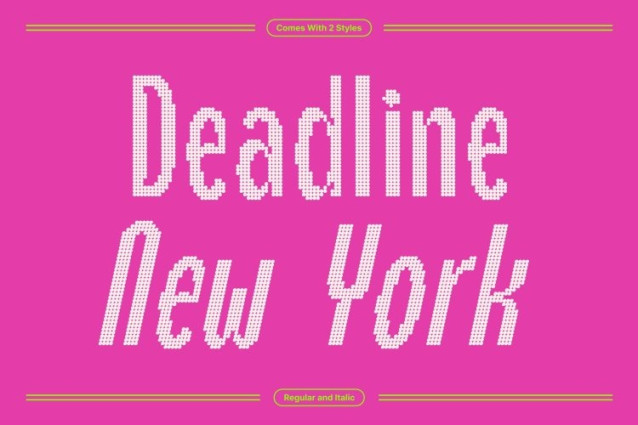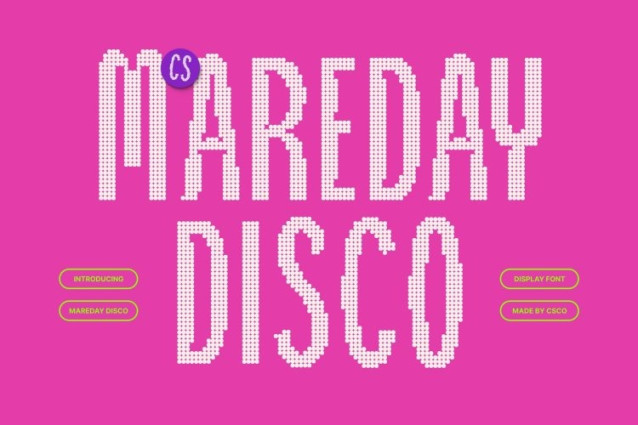
Mareday Disco Font
Mareday Disco Font This is a display sans serif font that blends clean modern structure with expressive inktrap detailing. Its refined inktrap cuts add depth and visual interest, while a subtle disco-inspired rhythm brings movement and personality making every letter feel sharp, stylish, and dynamic.
Condensed Structure for High-Impact Efficiency
Designed with a condensed form, this font maximizes space without sacrificing clarity. This efficient construction allows more content to shine in limited areas, making it ideal for headlines, banners, logos, and bold display layouts that demand strong presence and visual economy.
Low Contrast Elegance with Modern Flow
This font features a low-contrast stroke design that creates a smooth, balanced appearance. This understated contrast adds a layer of sophistication while maintaining readability, resulting in typography that feels polished, controlled, and effortlessly modern.
Versatile for Modern and Expressive Design
From branding and packaging to posters and editorial layouts, adapts seamlessly across a wide range of creative applications. It delivers the perfect balance of elegance, efficiency, and disco-inspired energy ideal for designs that want to look sleek, confident, and visually engaging.